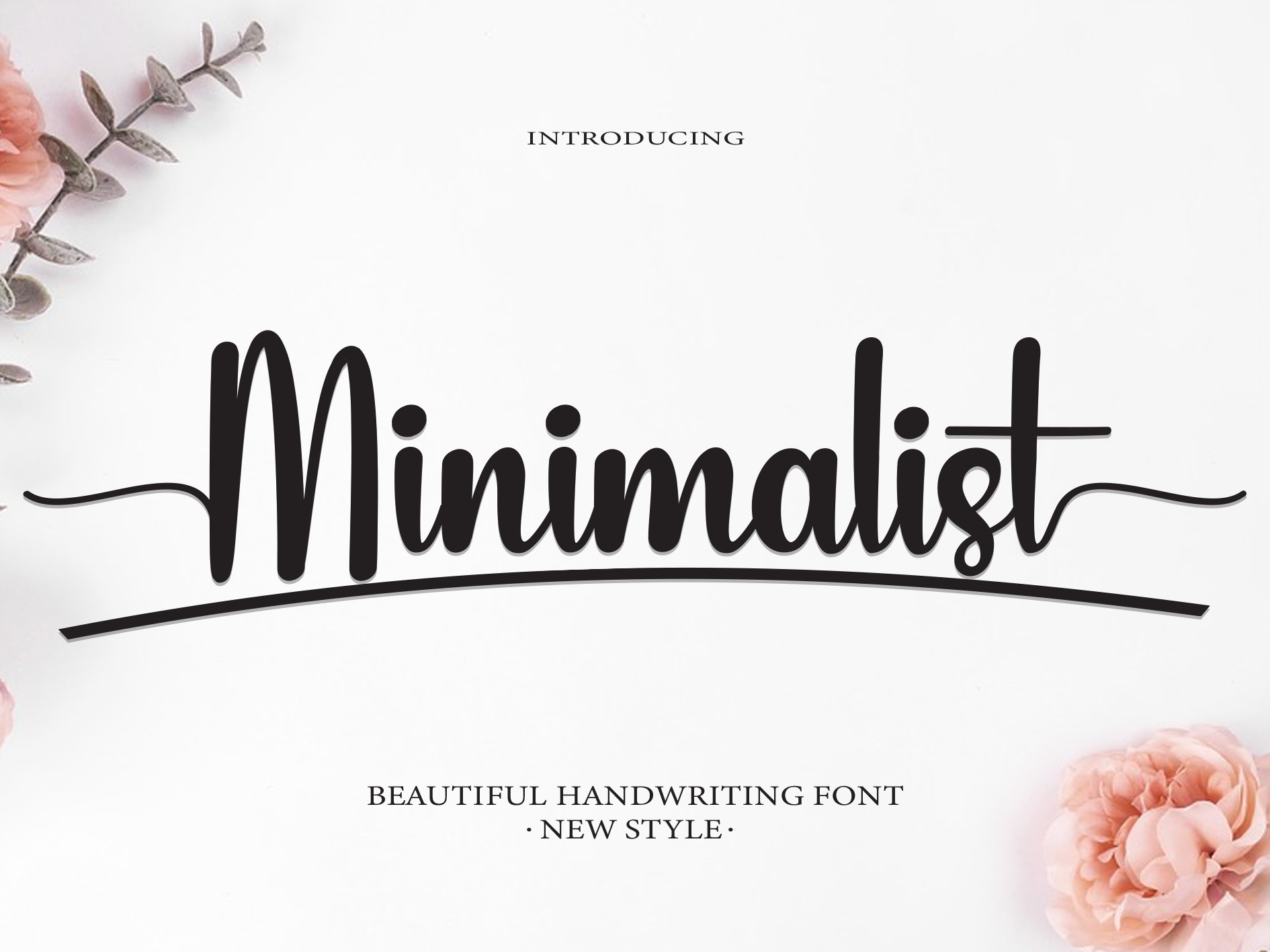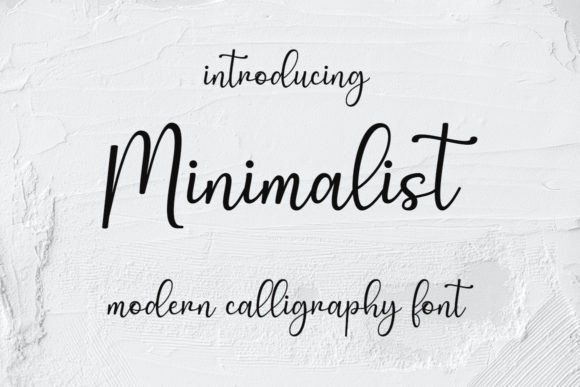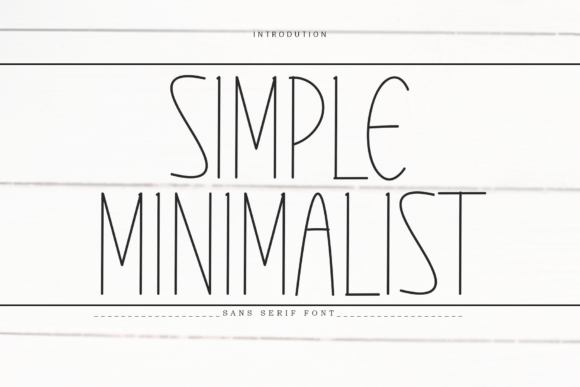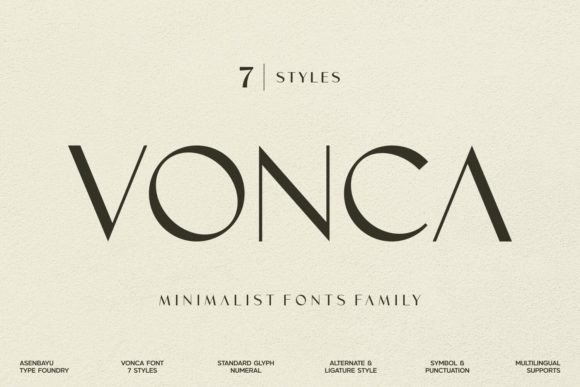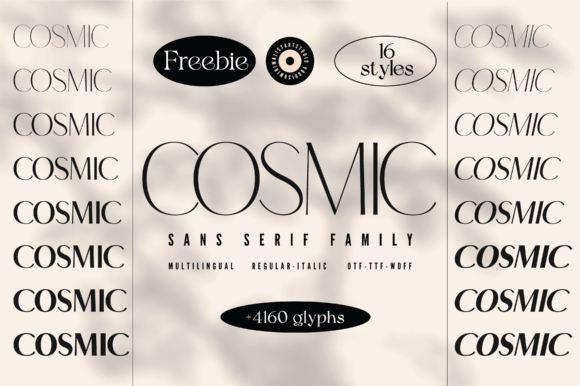
17 Creative Minimalist Fonts for Eye-Catching Designs in Canva
17 Creative Minimalist Fonts for Canva Designs (2026)
Discover 17 creative minimalist fonts perfect for eye-catching designs in Canva. These fonts offer modern, clean styles to elevate branding, social posts, and digital products. Plus, get bonus tips for sourcing high-quality, licensed minimalist fonts from Creative Fabrica for both personal and commercial use.
Minimalist typography continues to trend globally, making it a smart choice for branding, social media graphics, business cards, and more on Canva. Whether you’re a graphic designer, small business owner, Etsy creator, or blogger, the right minimalist font can instantly modernize your visuals and make your message stand out. Canva has a solid library of free fonts, but importing custom fonts—especially those licensed for commercial use—lets your work feel unique and professional. Below, you’ll find both built-in and Creative Fabrica minimalist font recommendations, each designed to deliver the “less is more” effect. Explore the options and get practical tips for uploading external fonts to Canva, plus discover even more choices at 11 Premium Retro Groovy Fonts for Designers in 2026.
Minimalist Font by cavalera creative Sleek Sans-serif Logos, headers, branding Get Font
Minimalist Font by Black line Geometric Sans-serif Social graphics, ads Get Font
Minimalist Font by ONE DESIGN Tall Serif Posters, book covers Get Font
Minimalist Font by LidvanType Clean Sans-serif Web design, branding Get Font
Minimalist Font by Bintang Studio Rounded Sans-serif Business cards, packaging Get Font
Minimalist Font by cavalera creative
This font delivers a truly sleek, pared-back sans-serif look perfect for logo design and high-impact headings. The carefully constructed letterforms ensure clarity and modernity in digital or print applications. Use it on branding packages or business presentations to instantly convey professionalism. Its clean lines stand out beautifully, even at smaller sizes.
Minimalist Font by Black line
With its geometric and structured sans-serif style, this typeface is ideal for eye-catching ad graphics or social posts where clarity is key. The modern shapes add a subtle sophistication without stealing attention from your message. Its versatility also shines on digital banners and web headers. A great pick for clean, impactful layouts.
Minimalist Font by ONE DESIGN
This tall serif font stands out with both elegance and simplicity. Its neat, modern lines make it a fresh choice for editorial designs, book covers, or sophisticated posters. The slender serifs offer just enough detail to add character without sacrificing a minimalist feel. Suitable for a wide variety of branding projects, both digital and print.
Minimalist Font by LidvanType
If you need pure minimalism with a contemporary twist, this font fits the bill. The crisp sans-serif forms make it easy to pair with branding palettes or use in modern web design. Its even spacing and legible shapes provide great readability at all sizes. Ideal for portfolios, tech brands, and clean digital interfaces.
Minimalist Font by Bintang Studio
Bintang Studio’s minimalist sans-serif features friendly, slightly rounded terminals for a softer look. It’s fantastic for business cards, packaging, or branding that needs to feel approachable yet modern. The subtle curves inject warmth into otherwise strict minimalism. Try it in lifestyle branding or creative portfolios for added charm.
Minimalist Font by Goodrichees
This font focuses on crisp, unembellished letterforms well-suited to minimal branding, fashion lookbooks, and Instagram graphics. Its refined proportioning keeps your visuals fresh and easy to read. Excellent for pairing with high-contrast palettes or using in white space-driven designs. A go-to for a polished, timeless vibe.
Simple Minimalist Font by Black line
Simple Minimalist Font lives up to its name with extremely pared-back glyphs and excellent legibility. Perfect for infographics, wellness brands, planners, and minimalist invitations. The straightforward design allows you to combine this font with visual icons or overlays effortlessly. A subtle, unobtrusive enhancement to modern templates.
Quirky Fabrica Font by Minimalist Eyes
This font puts a creative spin on minimalism with unique letter quirks that still feel distinctly clean. Eye-catching but not overpowering, it’s a fit for headline text, creative portfolios, or even modern product packaging. When you want minimalist design with a hint of individuality, this is a winning choice.
Minimalist fonts are a powerful way to make your Canva designs look clean, modern, and timeless. Whether you’re using built-in options or exploring Creative Fabrica’s curated selection, these fonts work across digital and print—with options for every designer’s workflow. Master the art of subtle typography and elevate your next project with a carefully chosen font from this list.